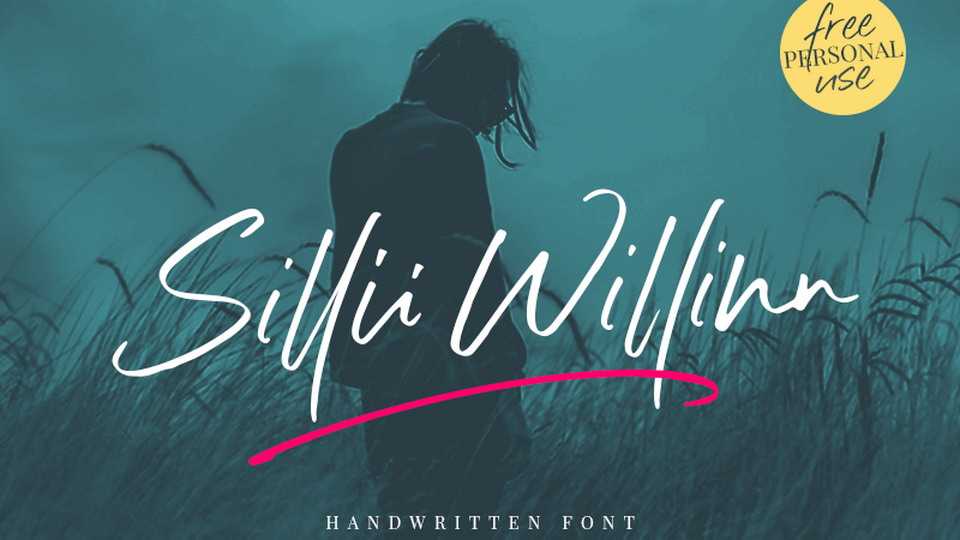
Download Sillii Willinn font, fashionable signature style handwritten script. Sillii Willinn font offers beautiful typographic harmony for your design projects.
Designer: Azetype Studio